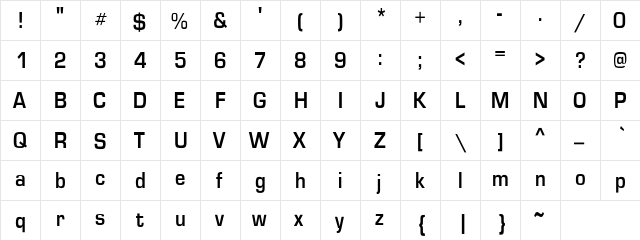
GardenwayCnd-Bo Regular
Design Context for GardenwayCnd-Bo Typeface
GardenwayCnd-Bo takes a measured approach to typography — its balanced proportions and neutral character make it a reliable workhorse for both digital and print work.